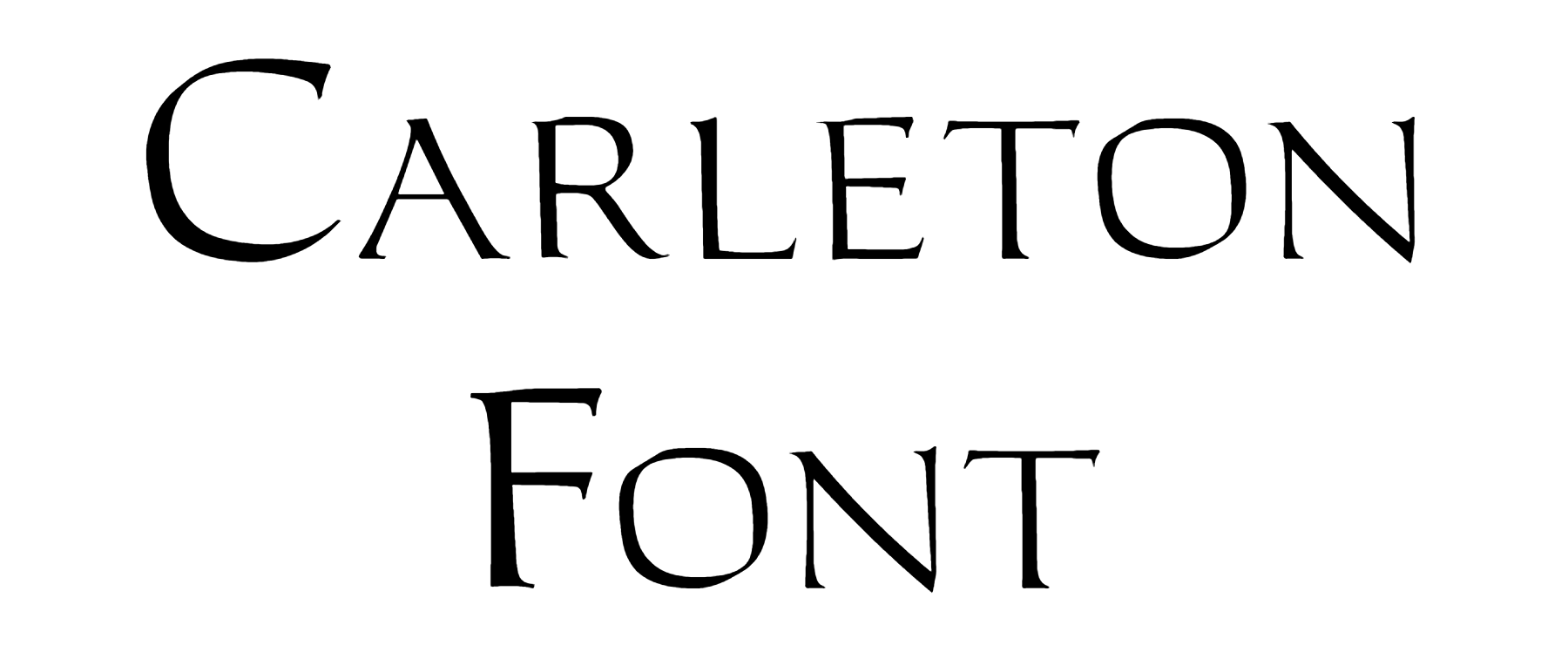
Carleton
Carleton is a serif font. Small strokes at the ends of its letters (the serifs) give it a classic, trustworthy look. It's a free download, and you can try it with your own text in the preview above first.
What You Can Type With Carleton
With complete upper and lowercase letters and all ten digits, Carleton is ready for real wording, not just a single headline. Common punctuation such as &, !, ? and @ is included as well. It also has the accented letters you need for Spanish, French, German, Portuguese and Italian.
Where Carleton Works Best
Think of Carleton for book covers, magazine headlines and classic branding. Serif fonts shine in headlines and printed text. For long paragraphs on phones, check that it still reads well at small sizes.
Does Carleton support accented letters?
Yes. Carleton includes the accented letters needed for Spanish, French, German, Portuguese and Italian, so it works for more than just English.